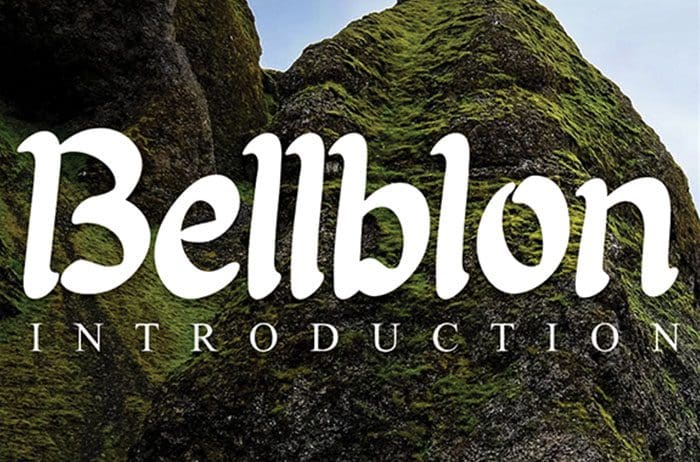
Bellblon Serif Font
Free Bellblon serif font, created by using a brush pen. Clean and a little bit quirky, this font is the perfect fit for all of your logos, branding, social media, and crafty DIY projects. Designed this font by Andika Studio. You can also search more freeĀ Serif Fonts.